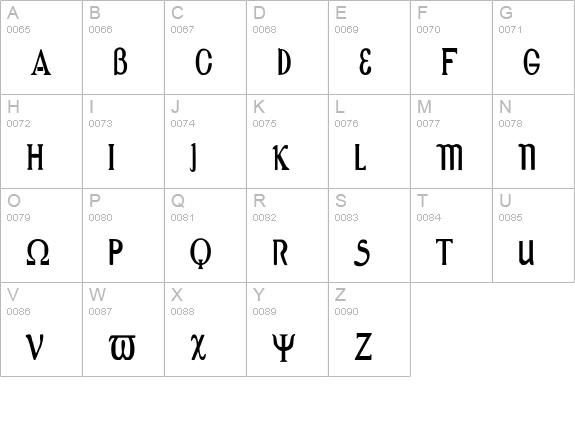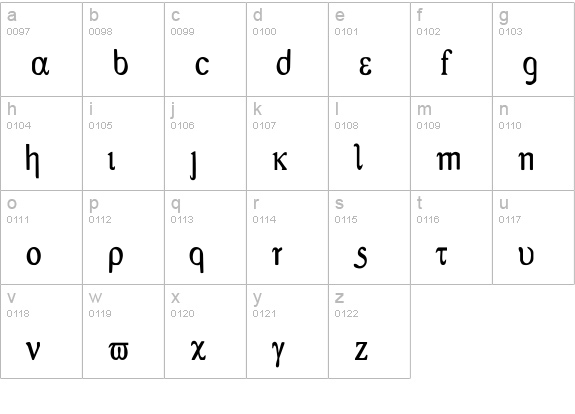
Introducing Greex font, a versatile and modern typeface that exudes style and sophistication. With its sleek lines and elegant curves, Greex is perfect for a wide range of design projects, from branding to editorial. This font offers a unique blend of classic and contemporary elements, making it stand out in any application. What's even better is that Greex font is completely free to download at FontsMarket.com. That's right, you can get your hands on this stunning typeface without any cost. So why wait? Elevate your designs with Greex font today and make a lasting impression.